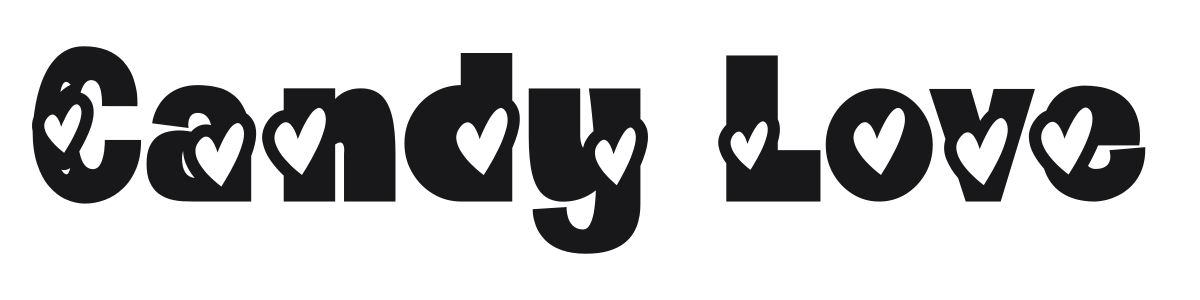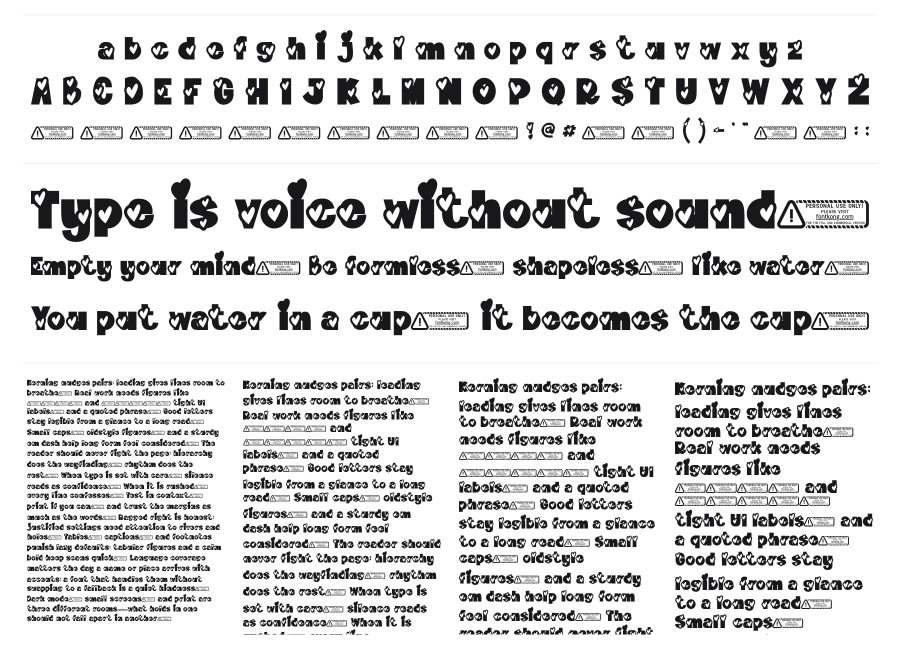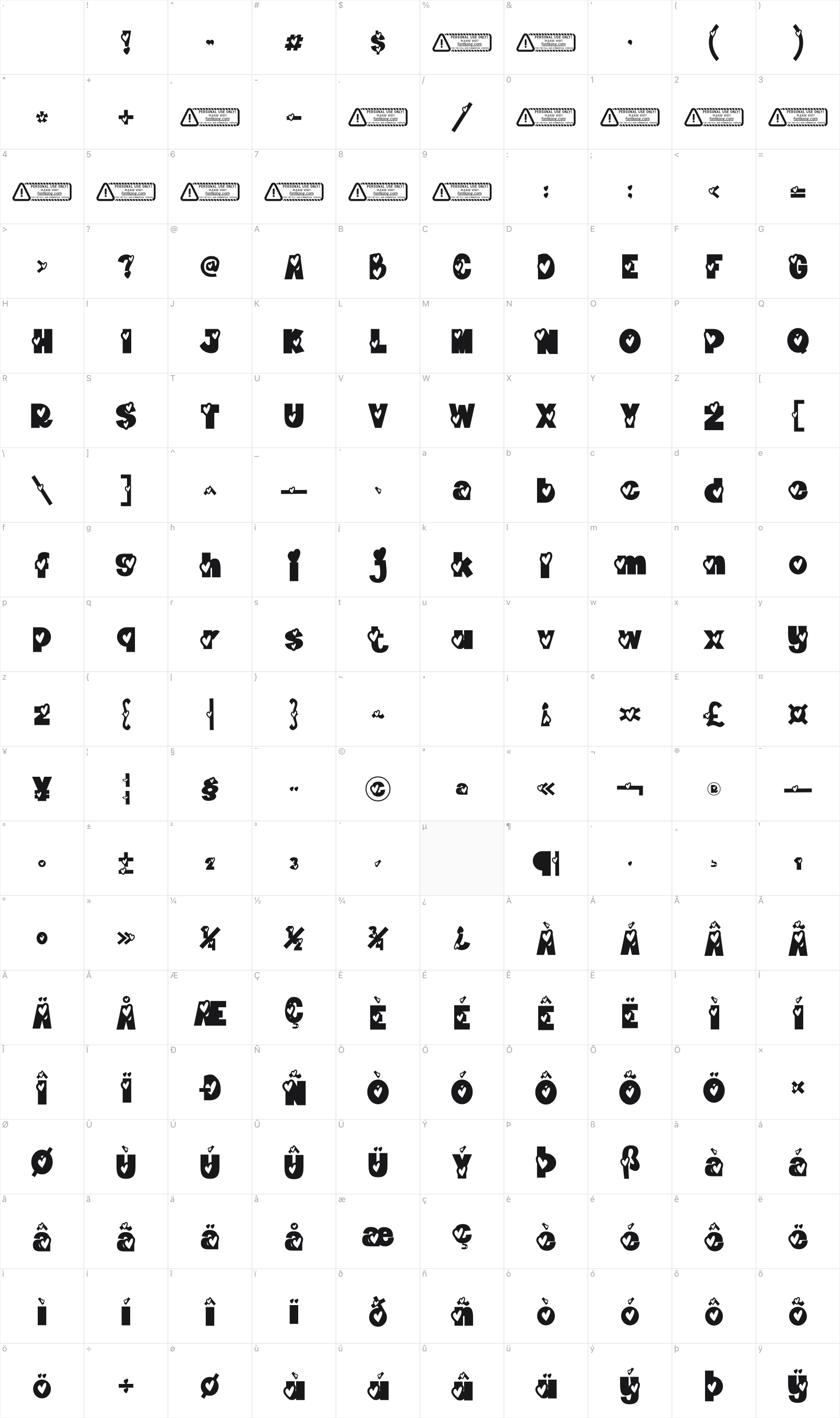
Candy Love
Candy LoveLicense is a chunky, heavy display font with heart-shaped cutouts punched directly into the letter bodies. The combination of bold, blocky construction and scattered heart details gives it an instantly recognizable Valentine or kawaii aesthetic. It reads at a glance and works best large, where the cutout detail can breathe.